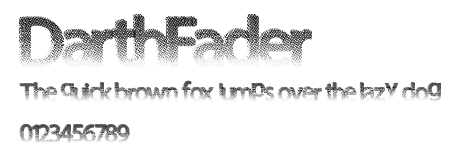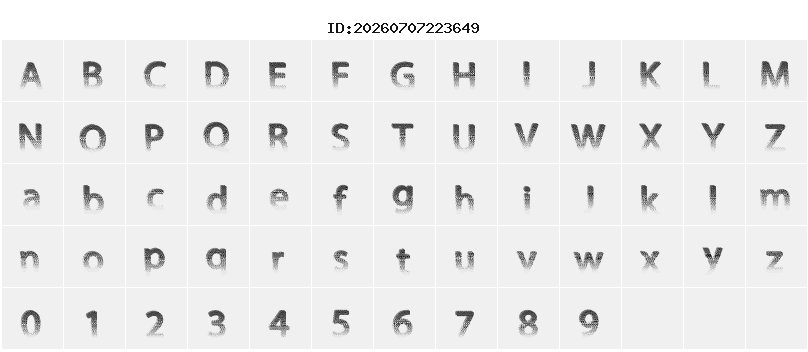
DarthFader Preview
• Font Name: DarthFader
• Designer: Max Infeld
• Manufacturer: Xerographer Fonts
• Description: This font in chico,CA
About DarthFader.ttf
DarthFader.ttf is a modern, elegant sans-serif font designed for ultimate readability and visual harmony. Perfect for branding, headlines, web design, and print materials.